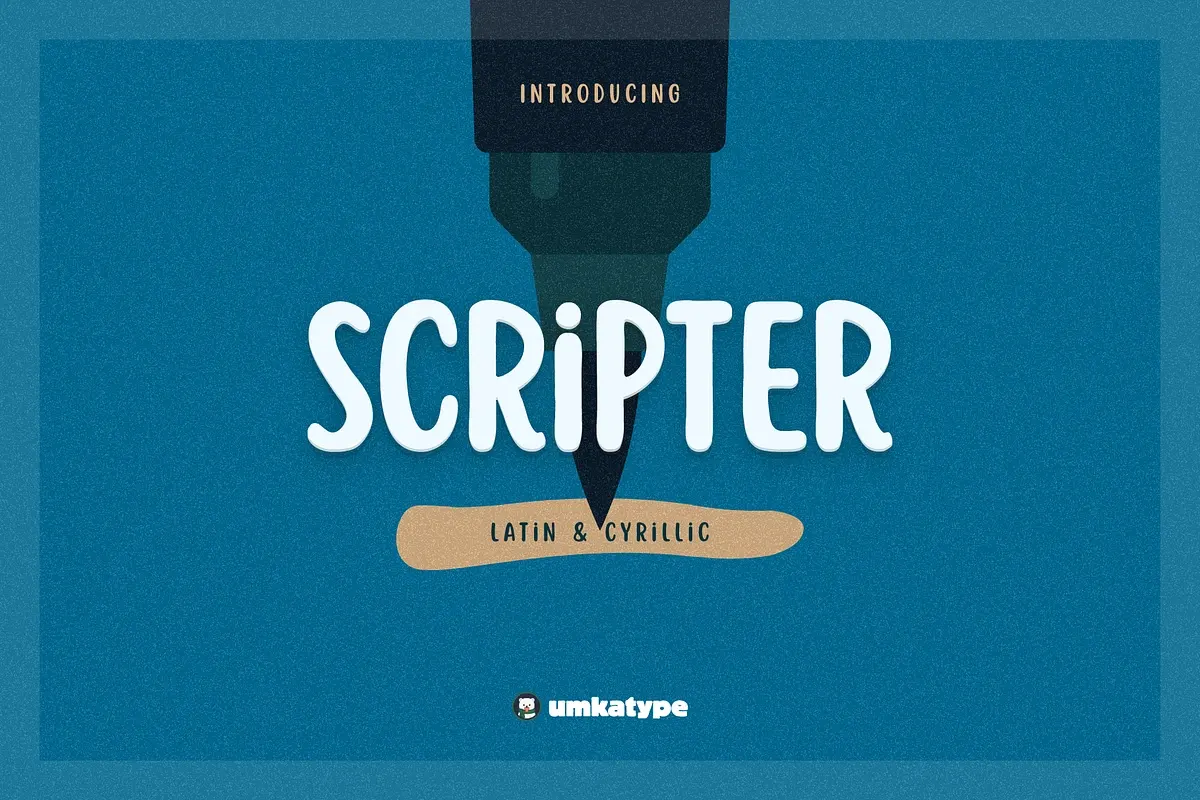
Scripter Display Font Free Download is a bold and stylish typeface that combines the elegance of script writing with the power of a display font. Featuring fluid, artistic curves and a strong, confident presence, this font is perfect for creating standout designs such as logos, branding, posters, and headlines.
The Scripter Display font gives your design a personal, handwritten feel, while its bold strokes make it perfect for high-impact projects. Whether you're designing for a creative brand, event, or promotional campaign, this font brings a unique and expressive flair to your typography.
Add personality and flair to your designs with the dynamic style of Scripter Display!